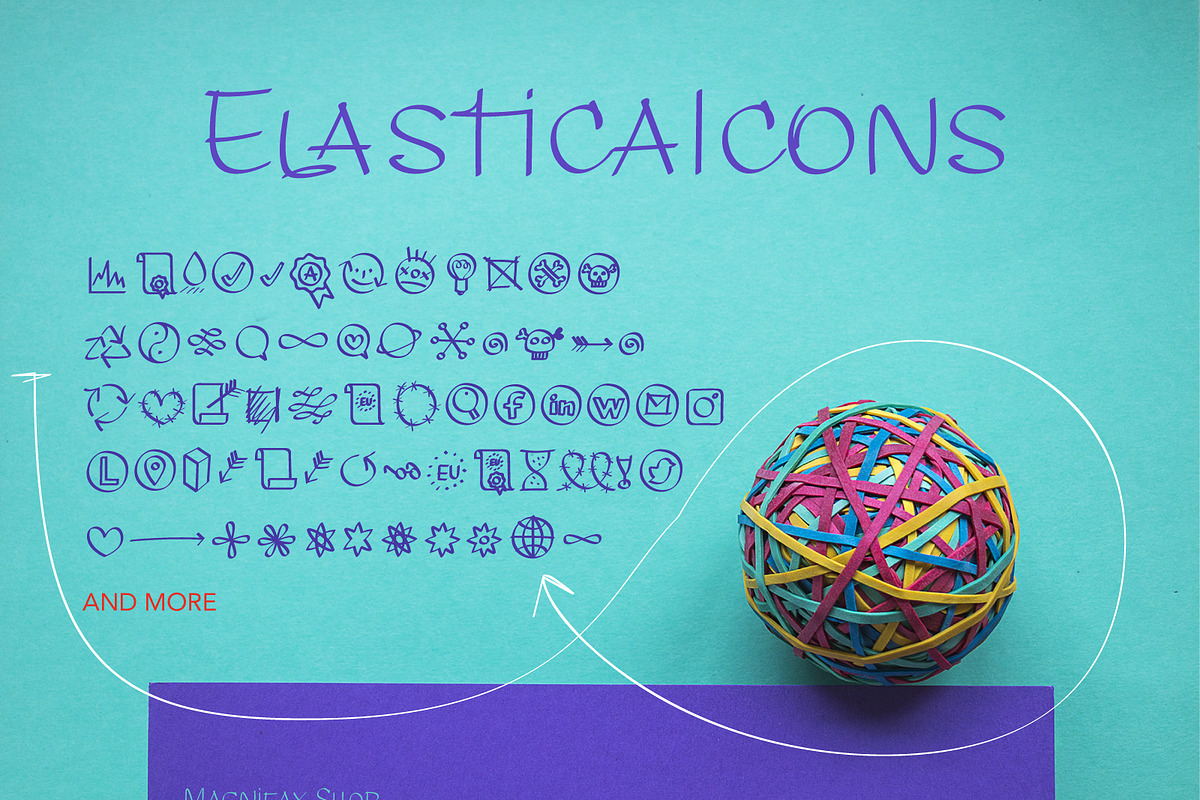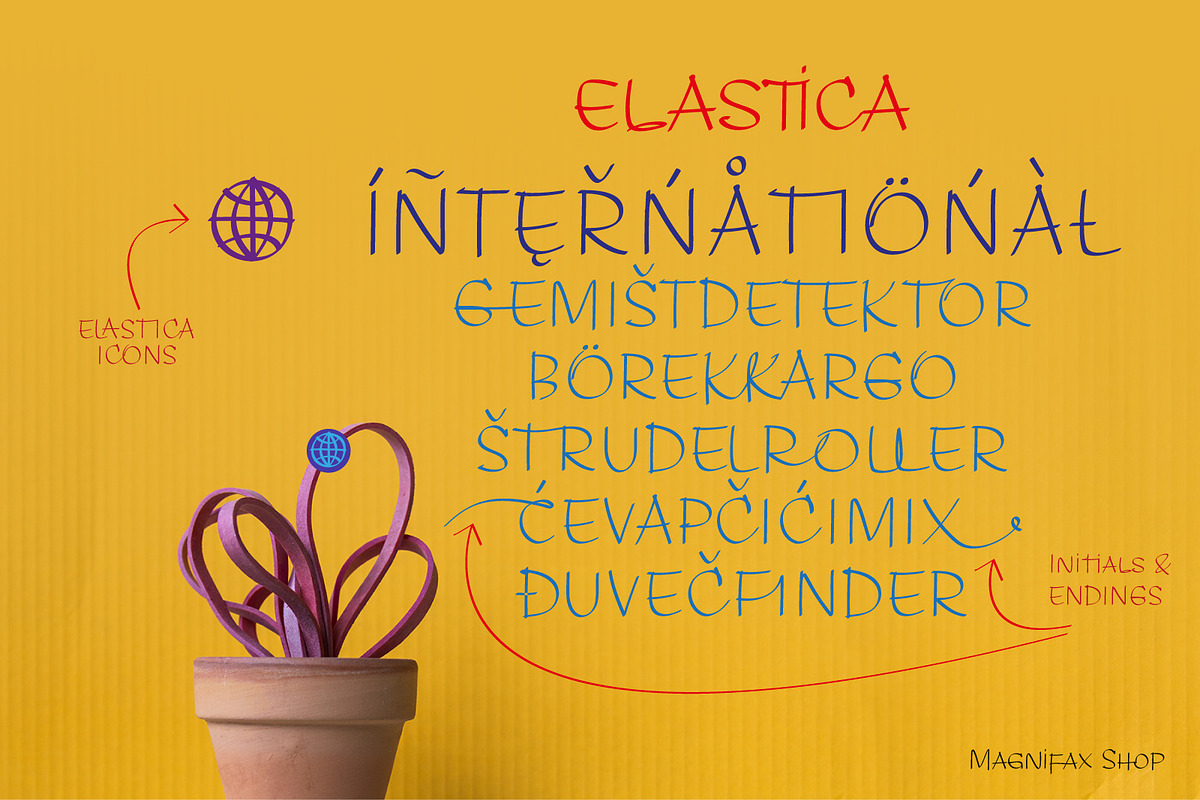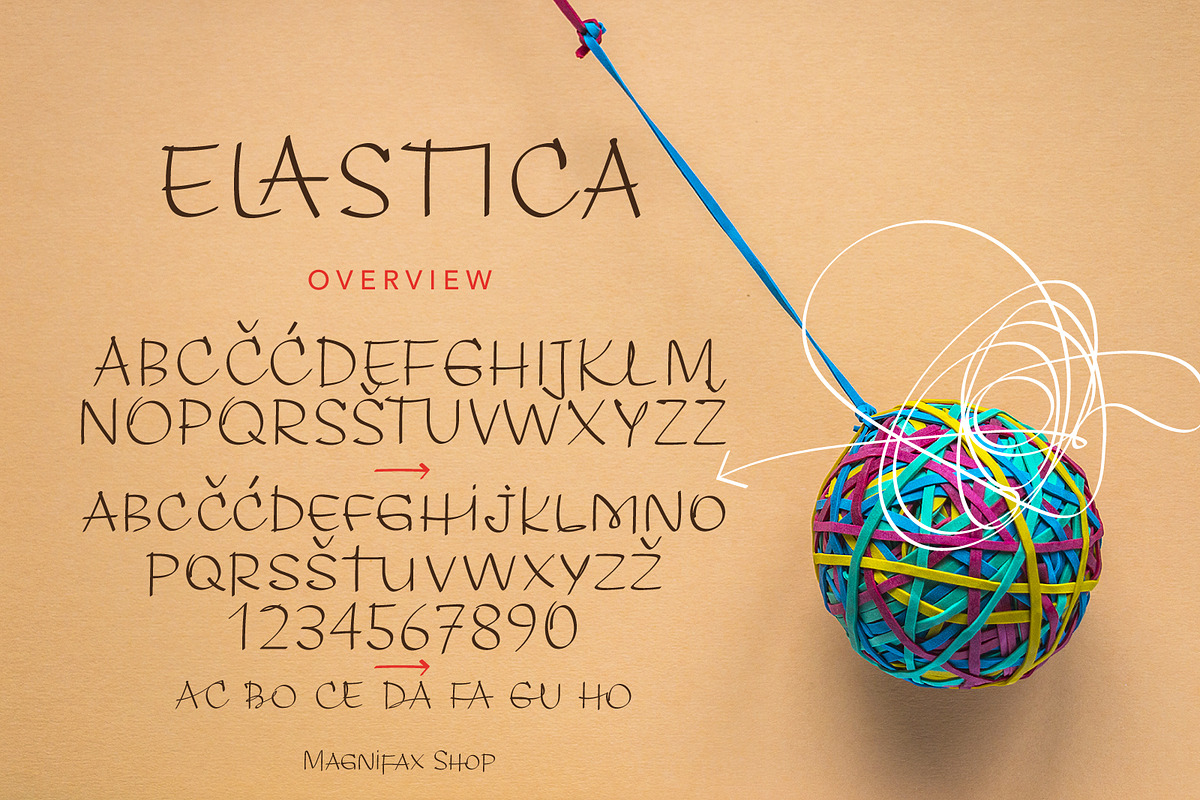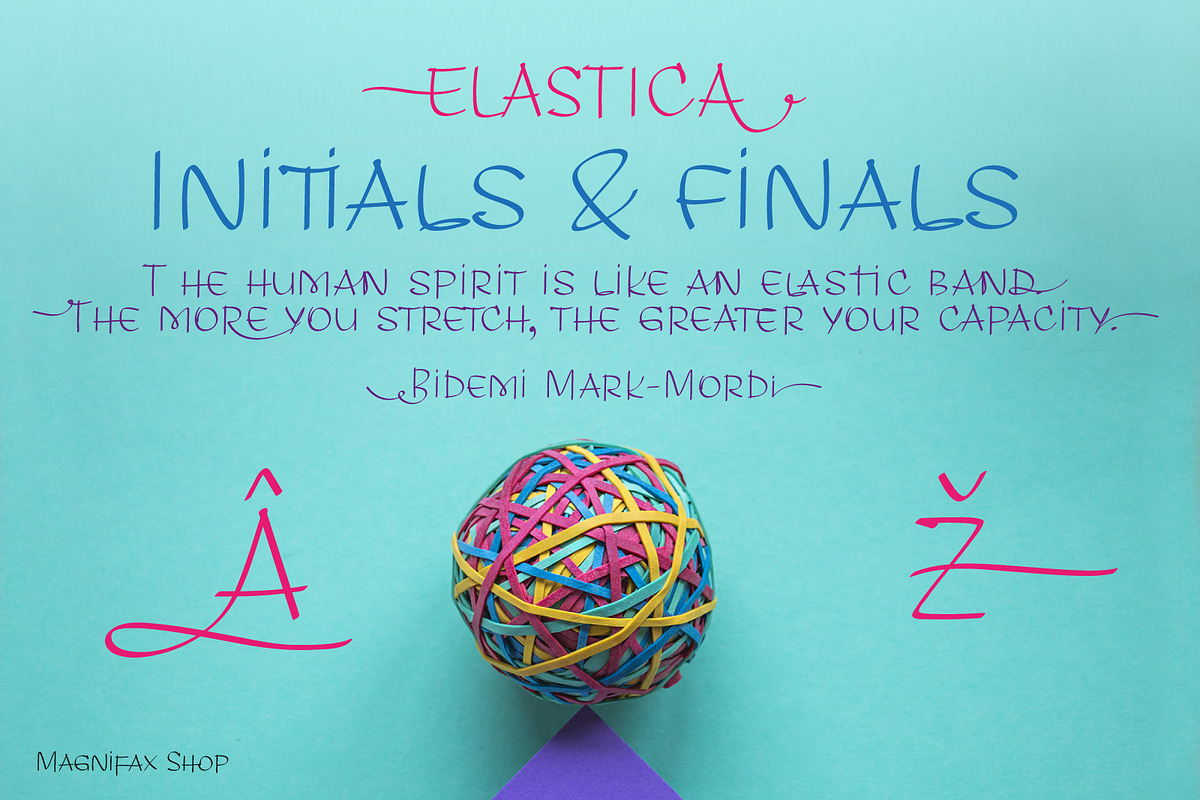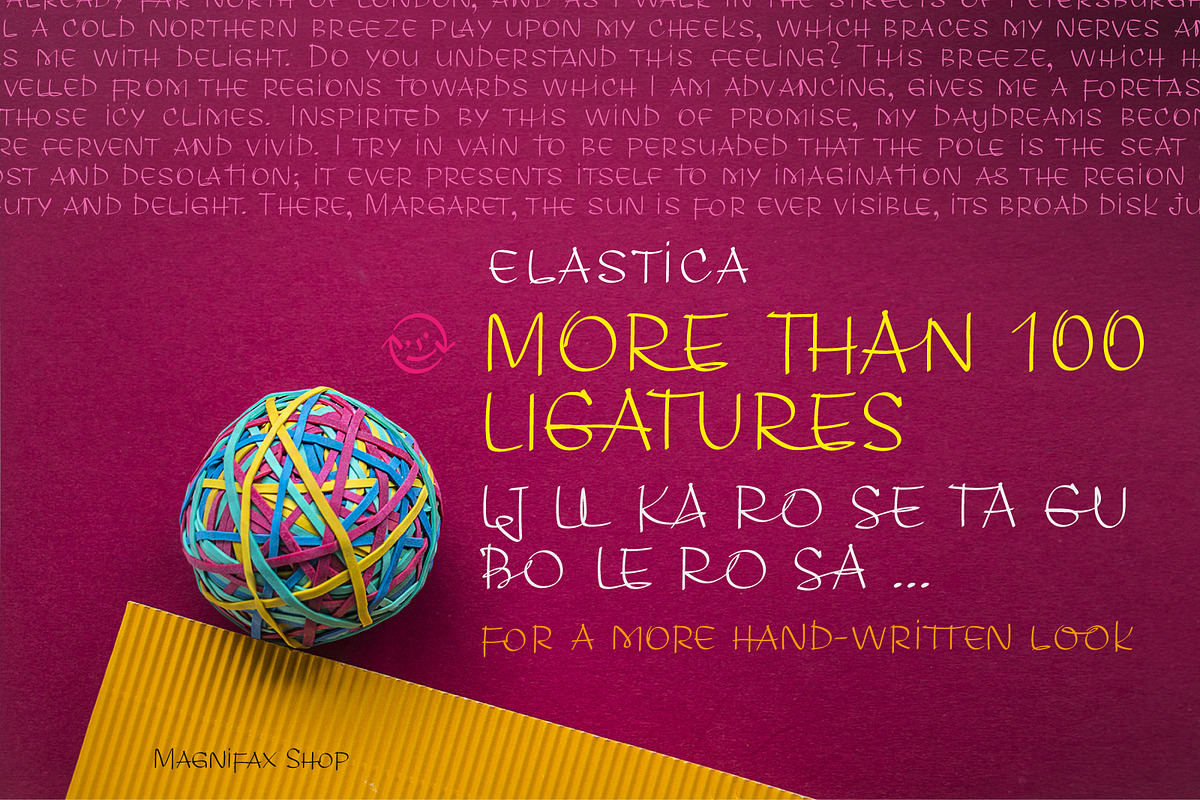
ELASTICA font + ELASTICA Icons font
ELASTICA FONT + ELASTICA ICONS FONT ELASTICA is an handwriting based font with modern calligraphic style. The font is suitable for short titles and longer texts. Elastica font includes uppercase and lowercase letters, massive collection of ligatures, initials and endings usable for Western, Central and Eastern Europe and Turkish. Elastica font comes with Elastica Icons font where you can find more than 70 icons.